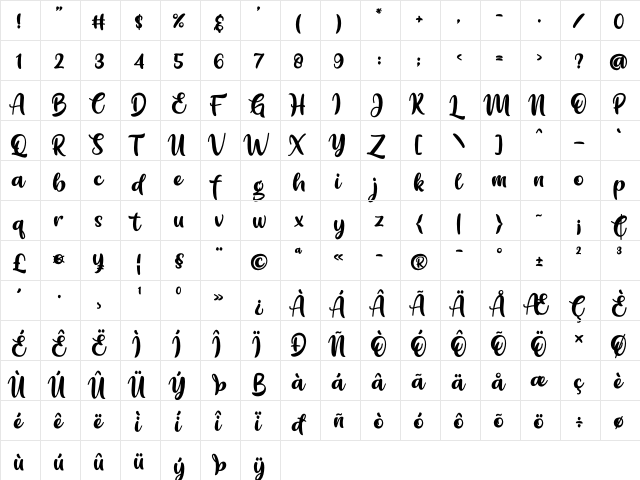
Zegirats Regular
Design Context for Zegirats Typeface
Zegirats is a composed and adaptable typeface that performs quietly and consistently across a wide range of design contexts.